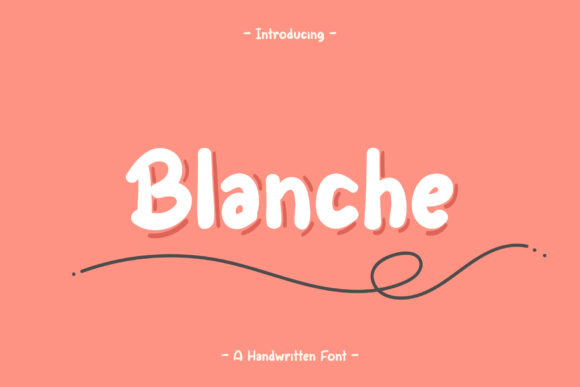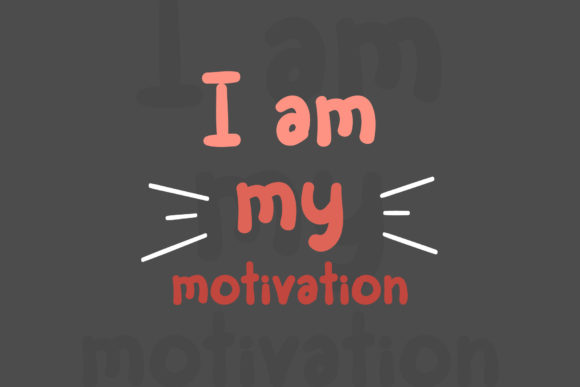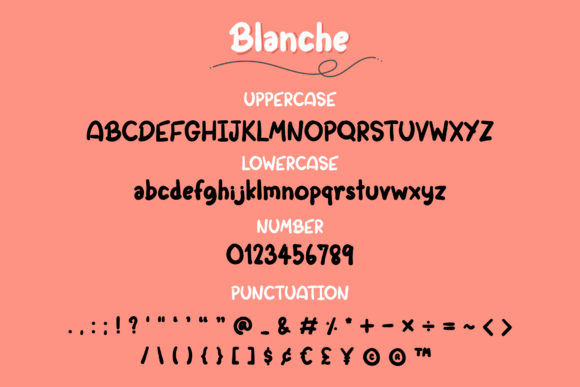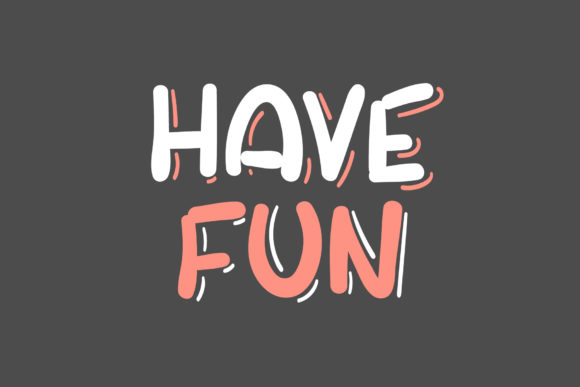
About Blanche Font
Blanche is a cute and casual handwritten font , created with the help of an outstanding brush pen. Whether you’re looking for fonts for Instagram or calligraphy scripts for DIY projects, this font will turn any creative idea into a true standout.